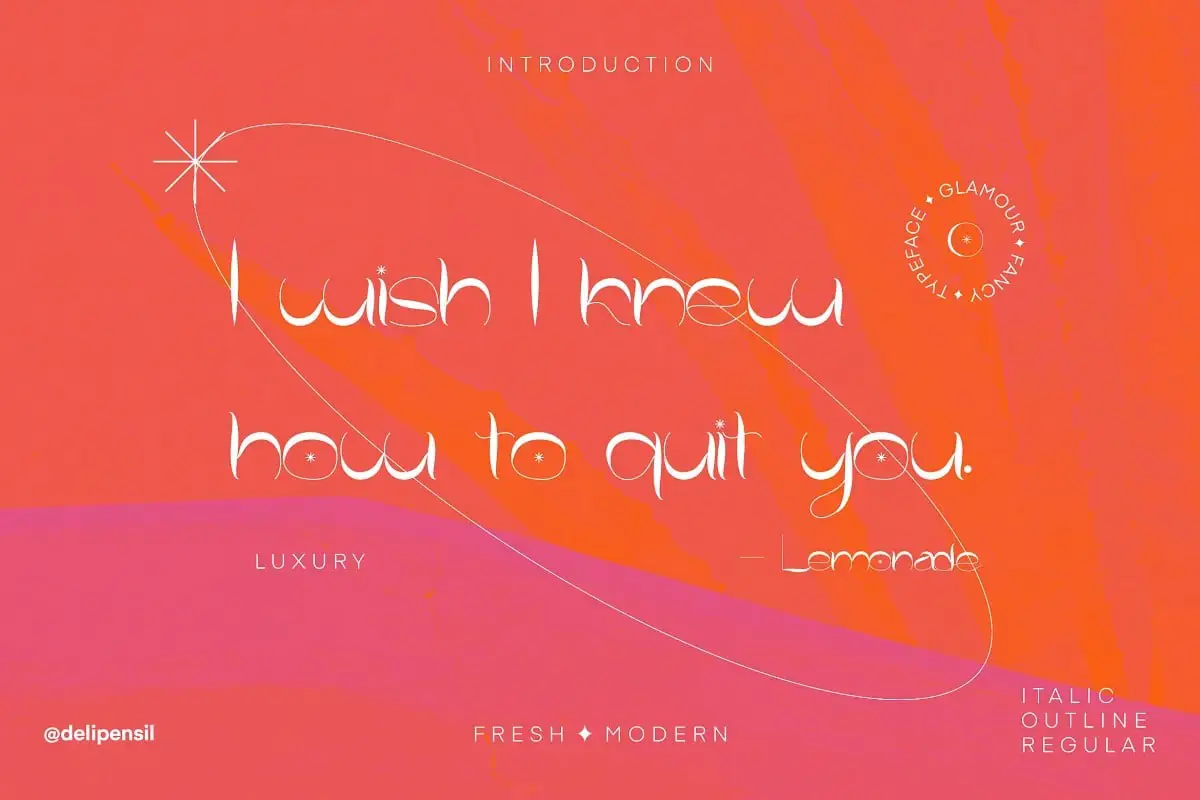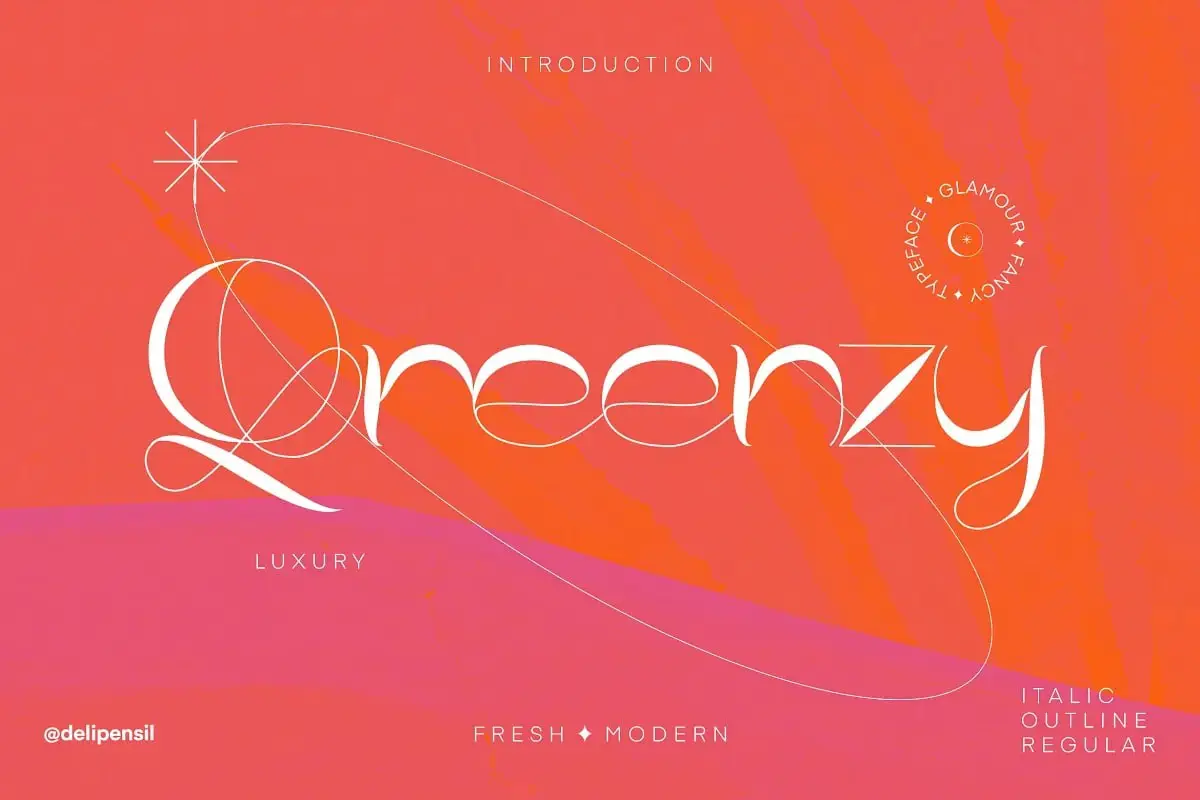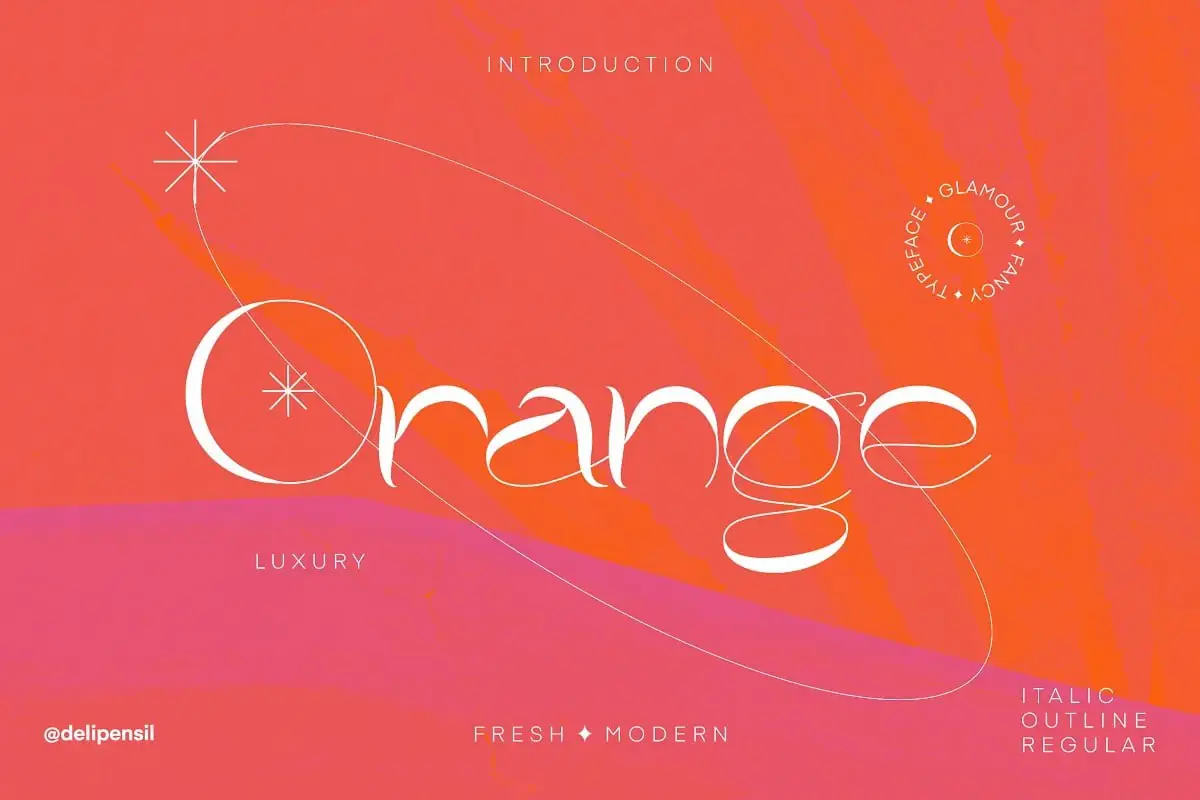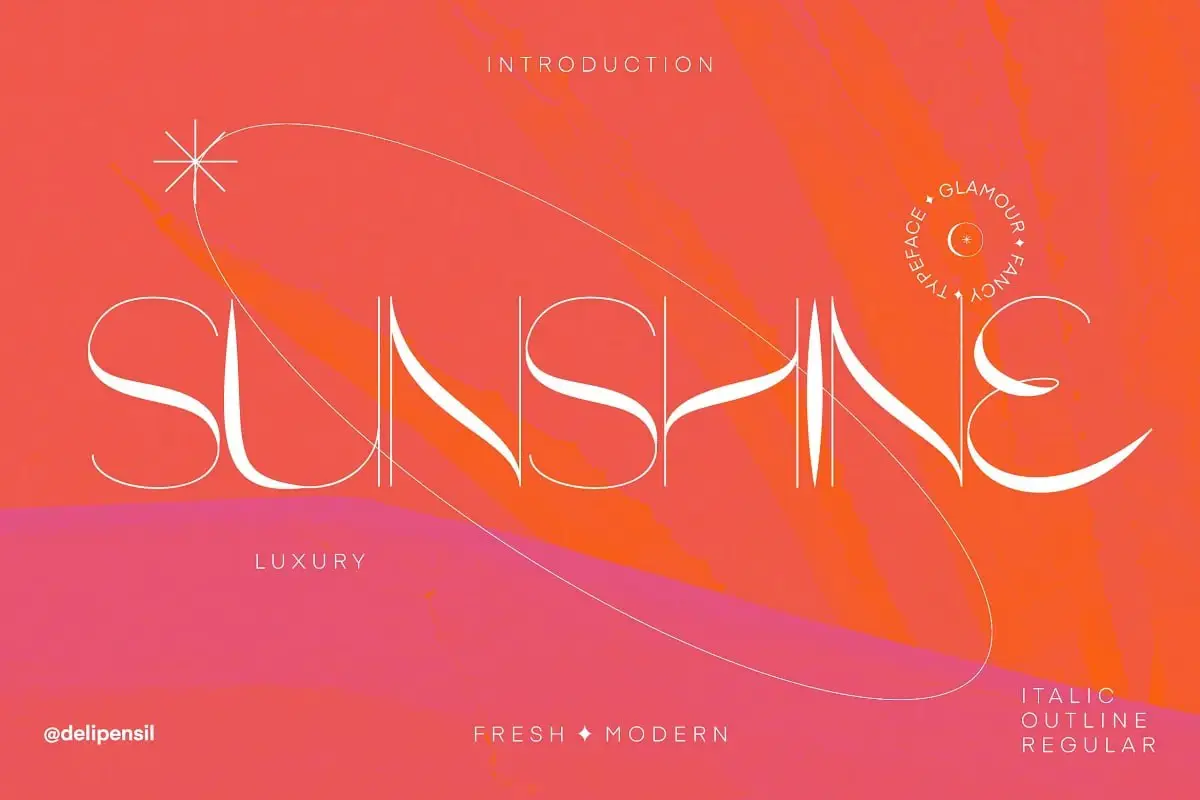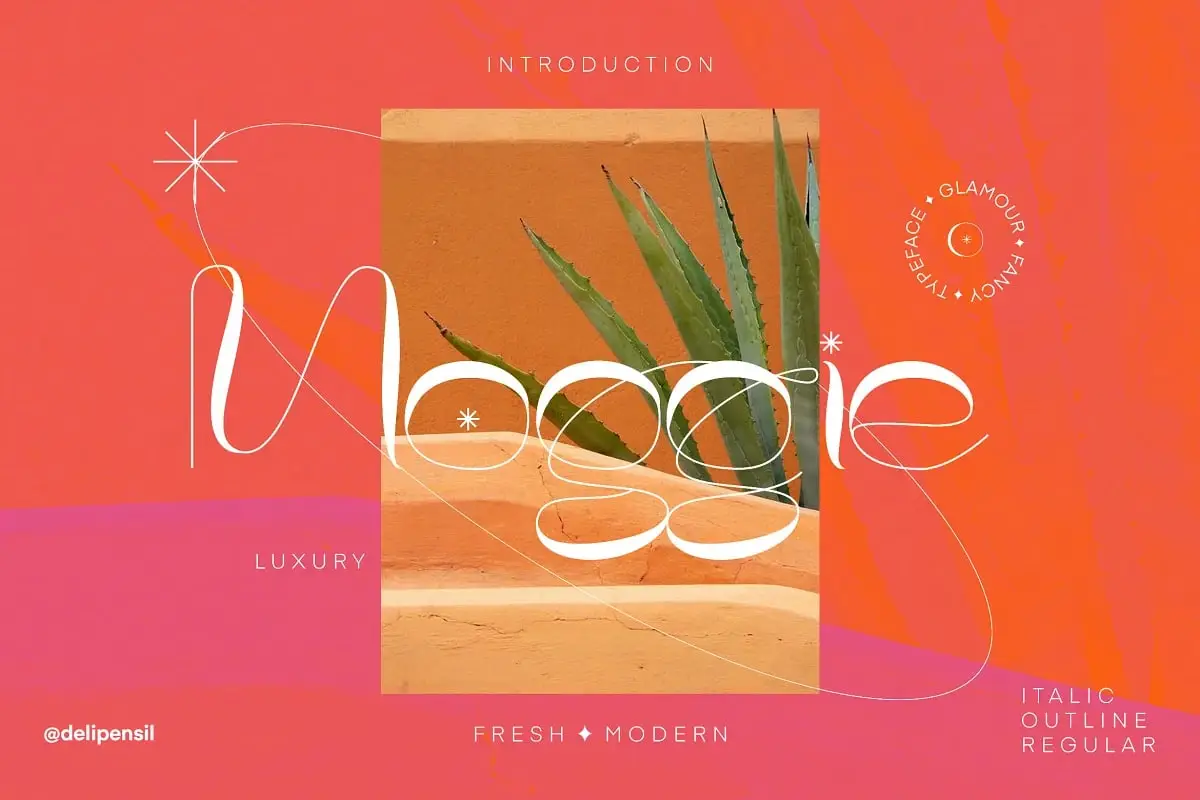
Moggie-Fresh Modern Typeface
The Moggie-Fresh Modern Typeface is a stylish and contemporary font designed to elevate your design projects. With its clean lines and modern aesthetic, this typeface is perfect for a variety of applications, including branding, logos, web design, and print materials.
• Multiple font weights for versatility
• Stylish ligatures for enhanced typography
• Ideal for modern branding projects
• Great for eye-catching headlines and titles